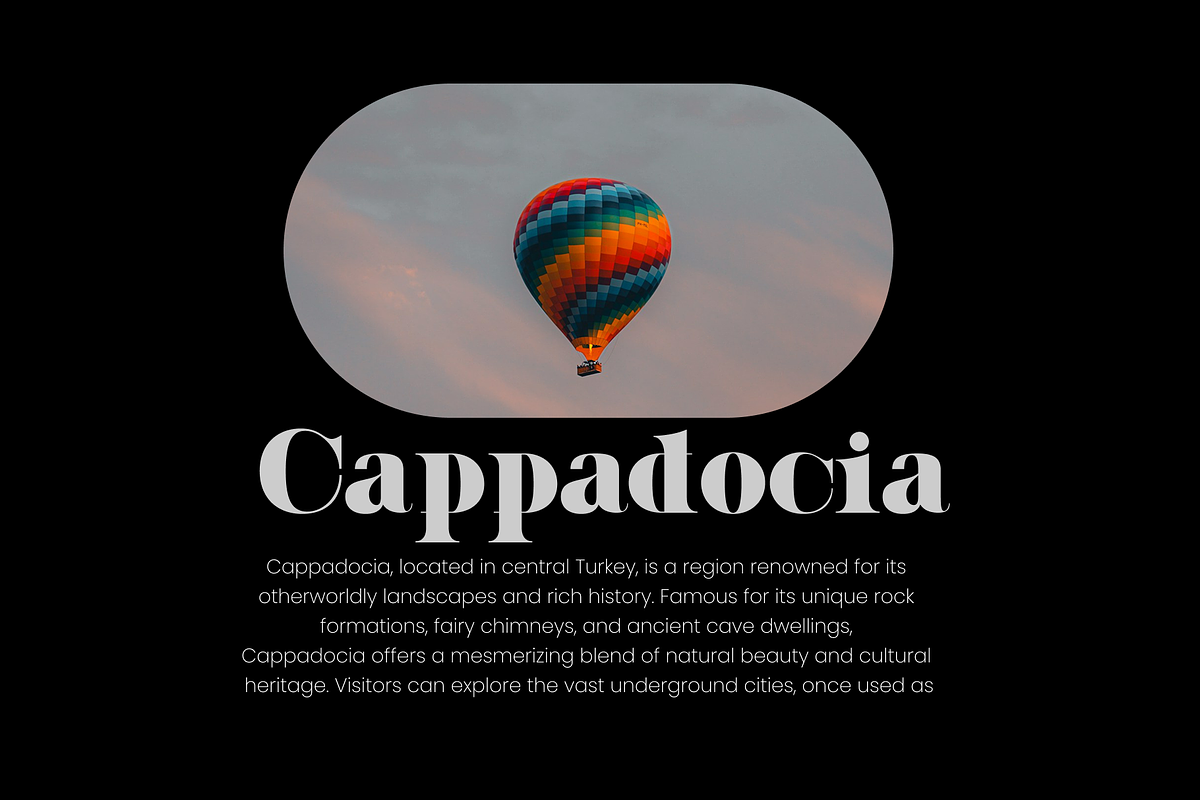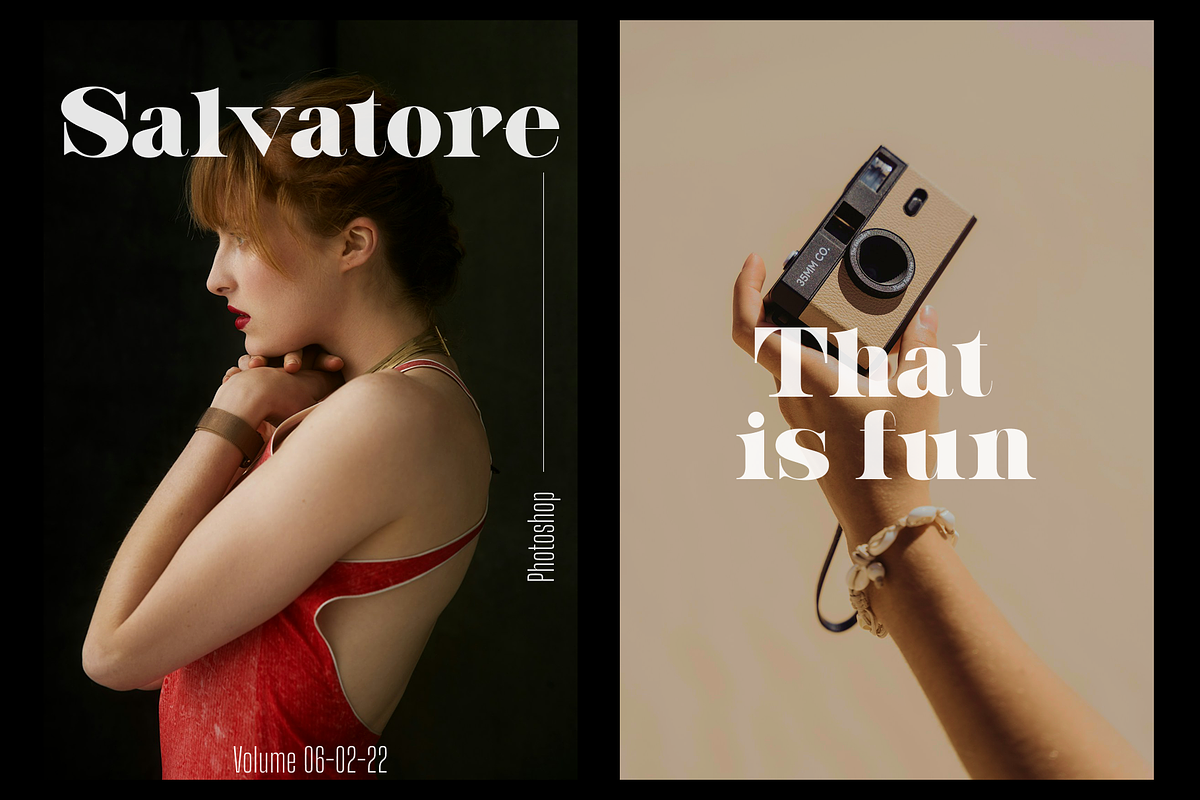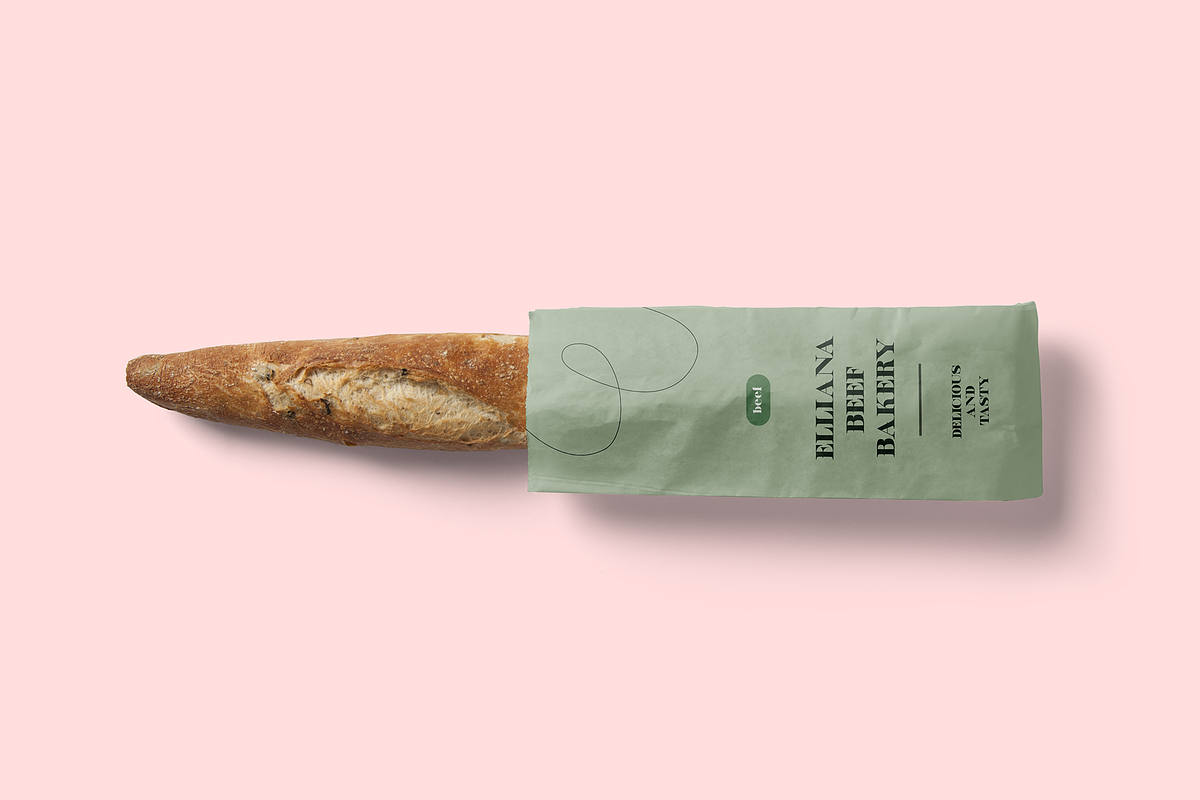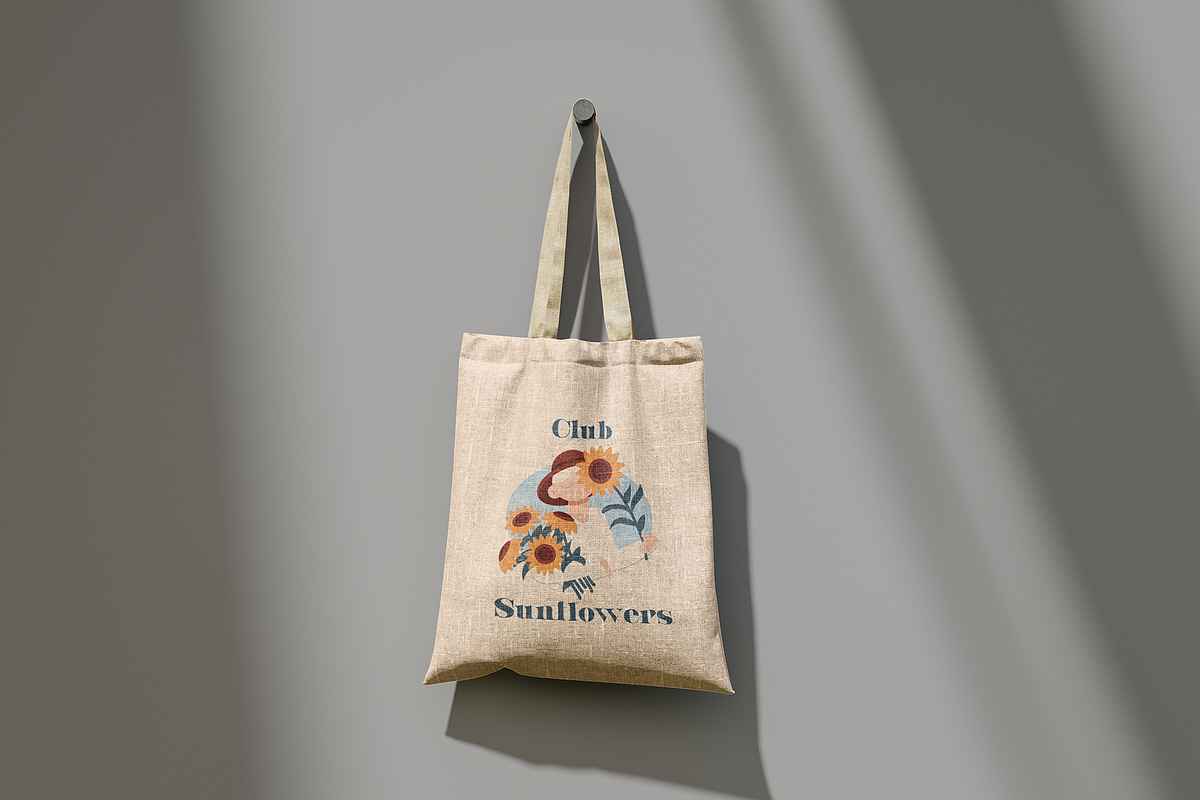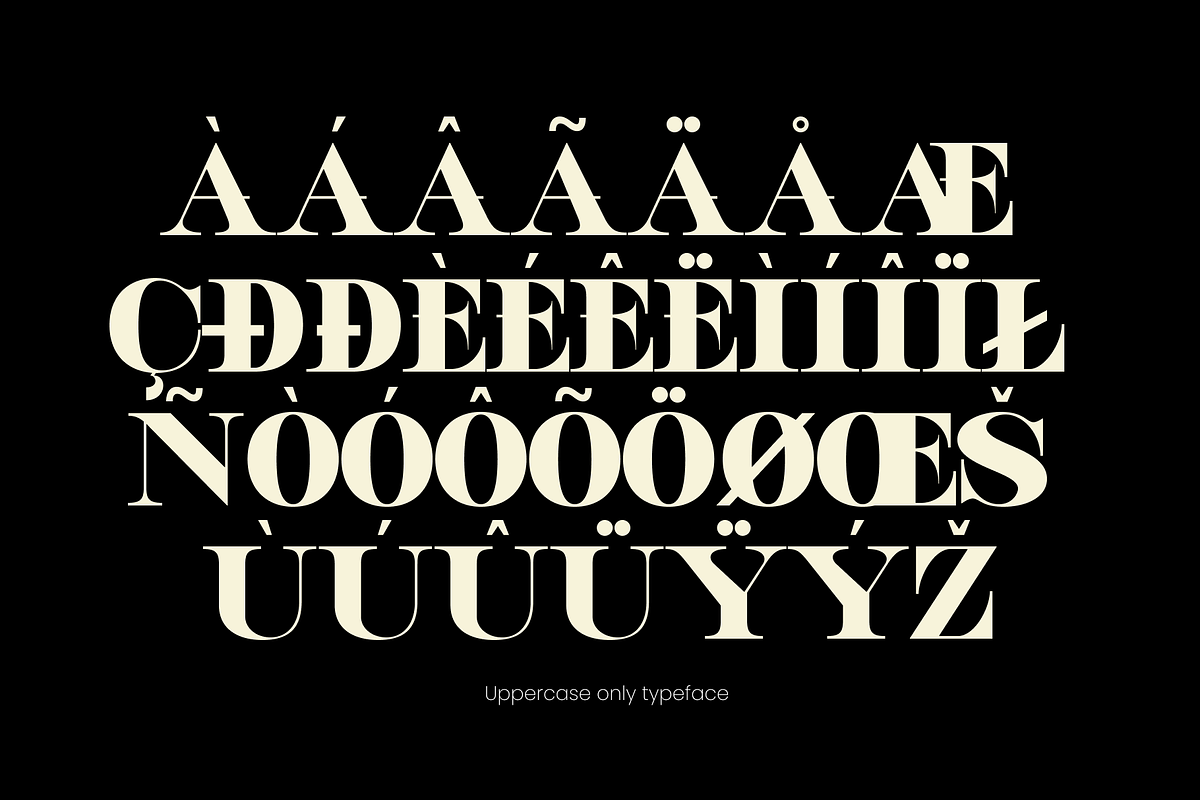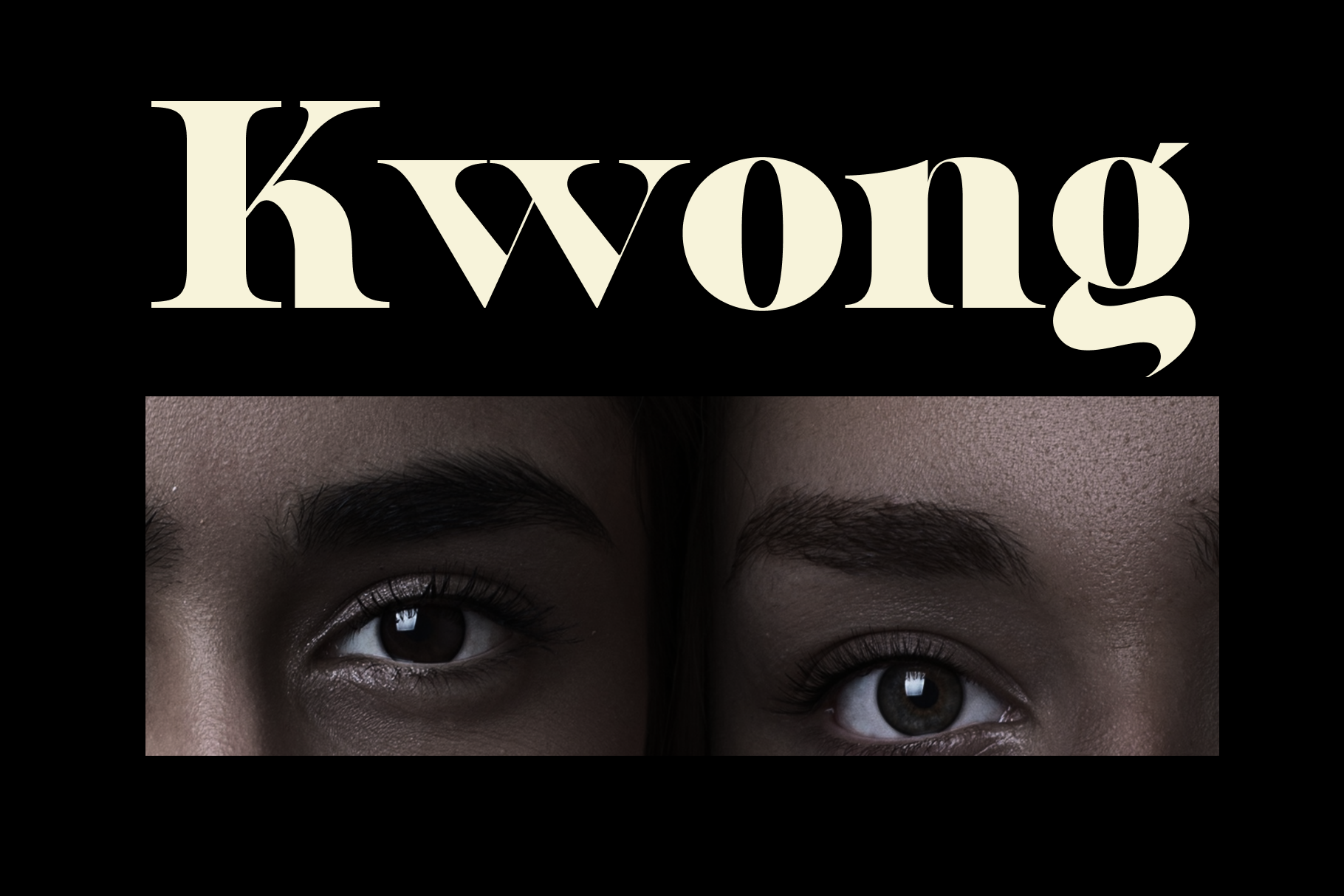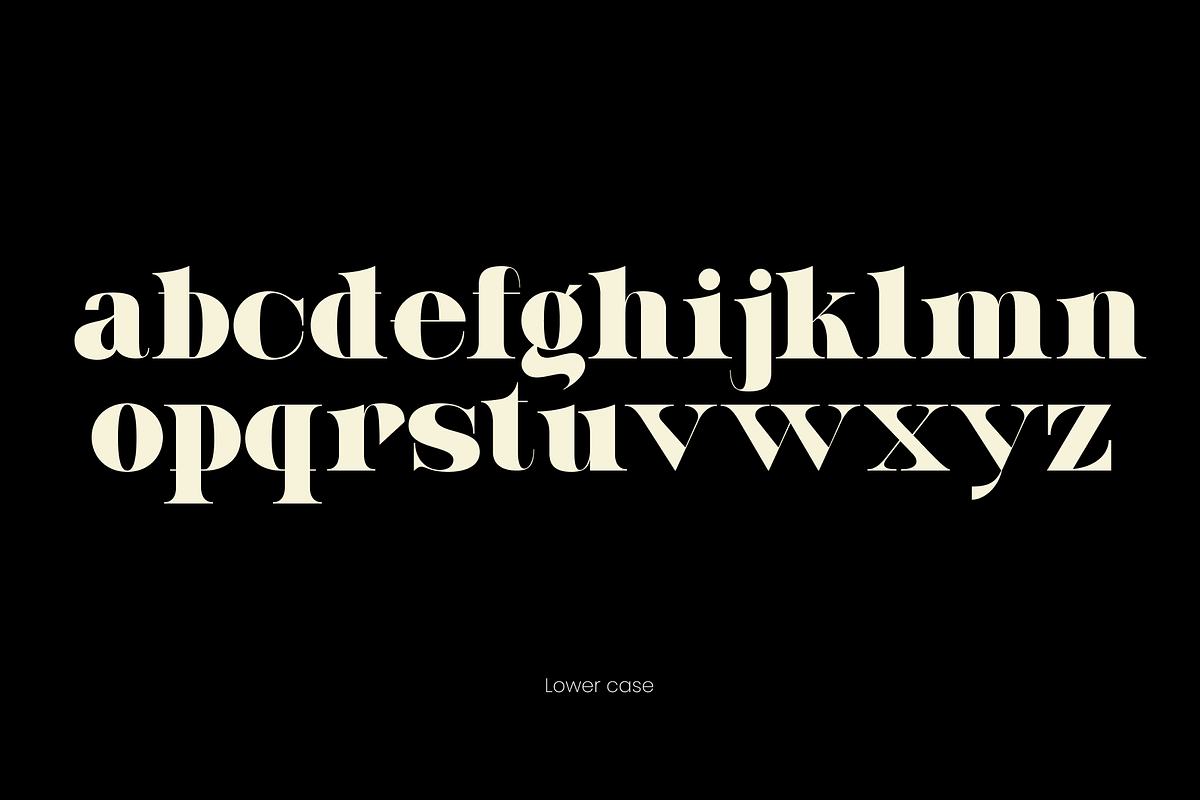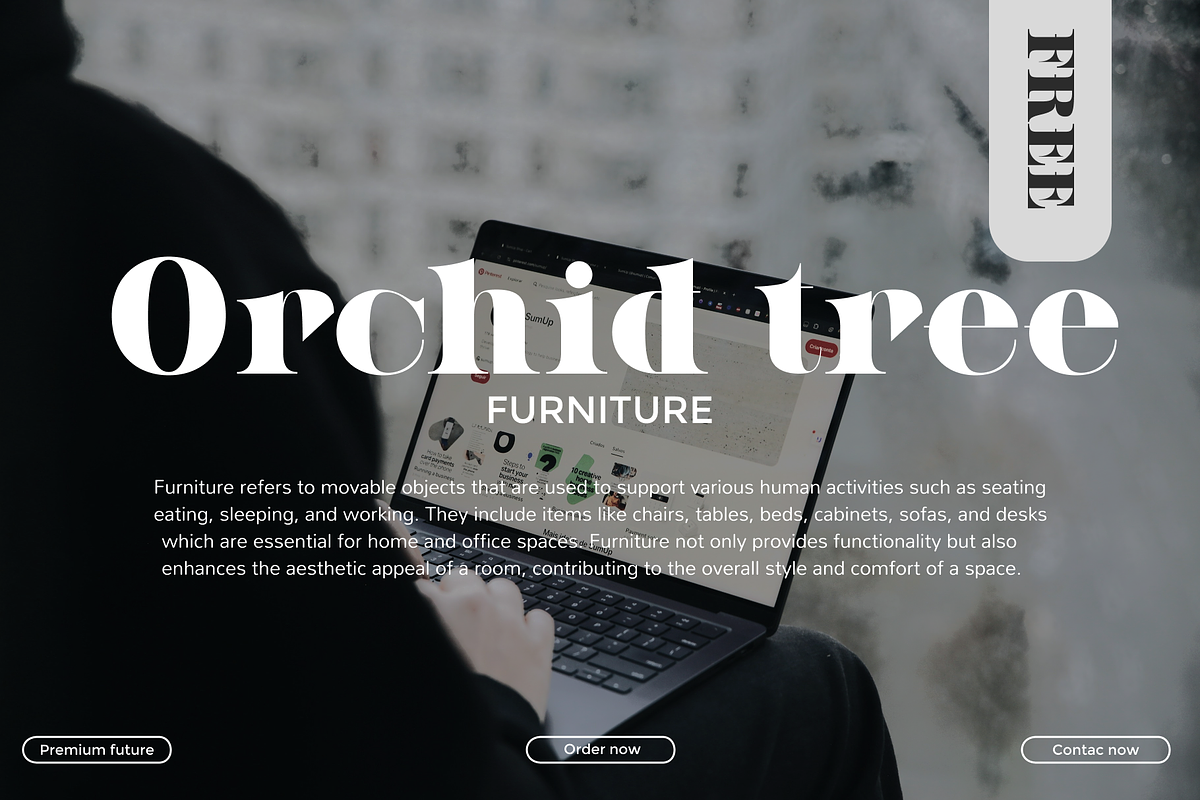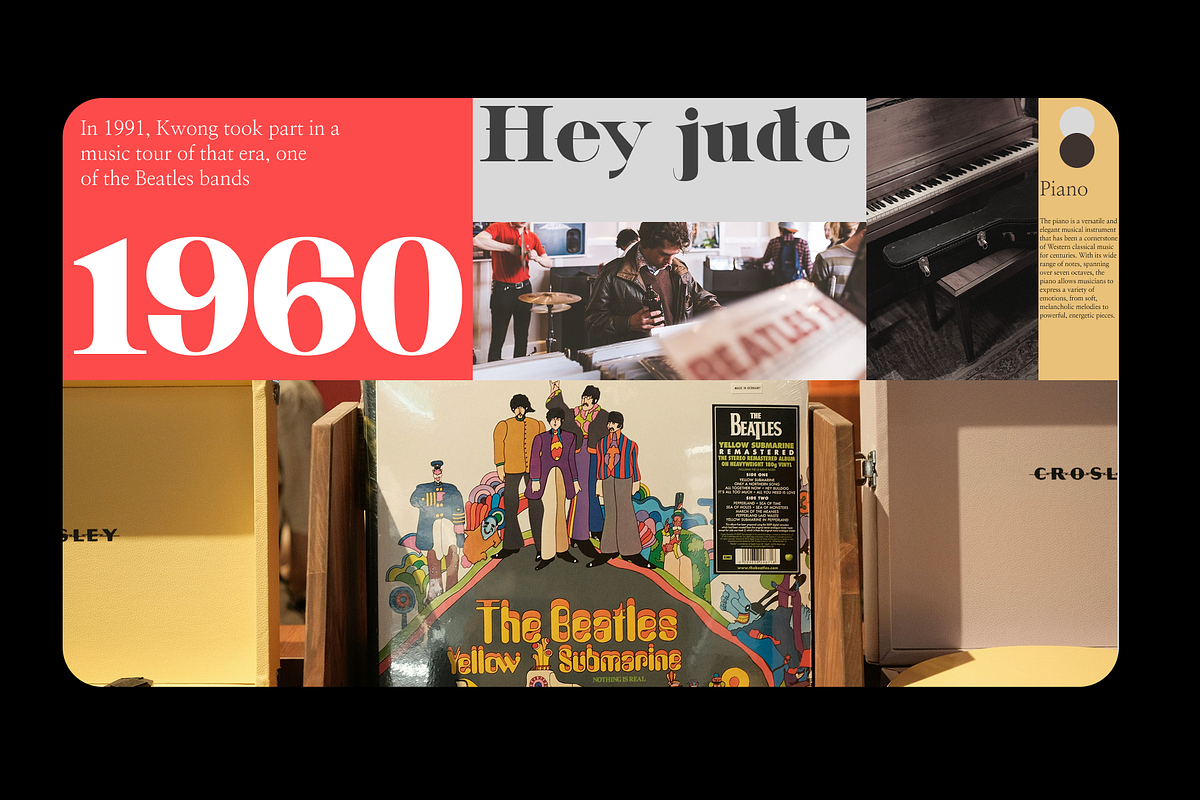
Kwong Display font
Kwong stands out as a sophisticated serif typeface that marries traditional elements with modern design principles. Its short serifs and balanced letterforms provide a versatile and elegant option for a wide range of design applications.